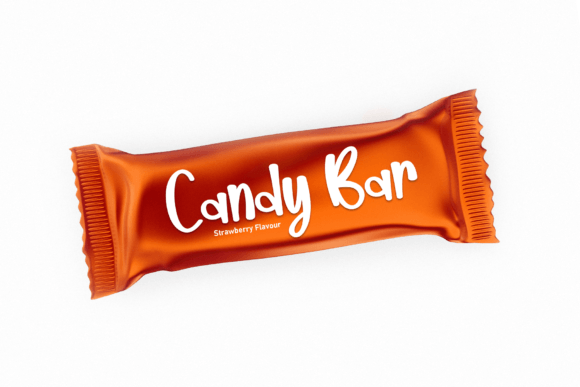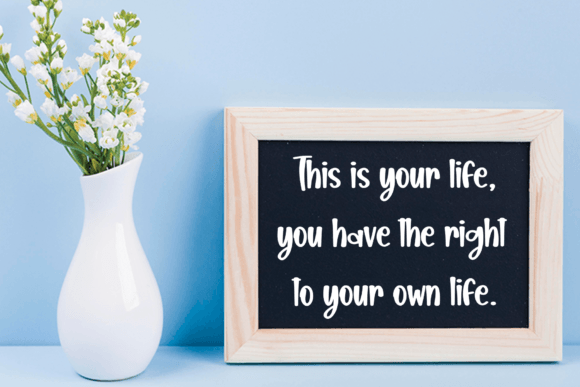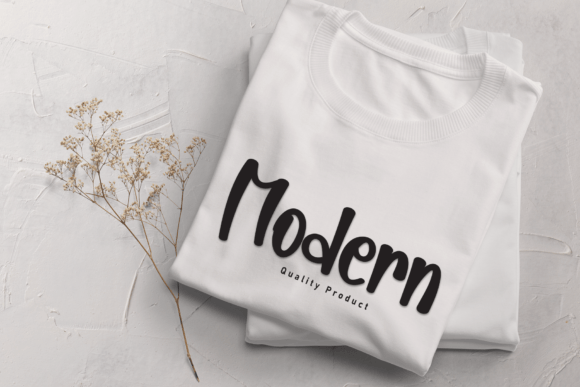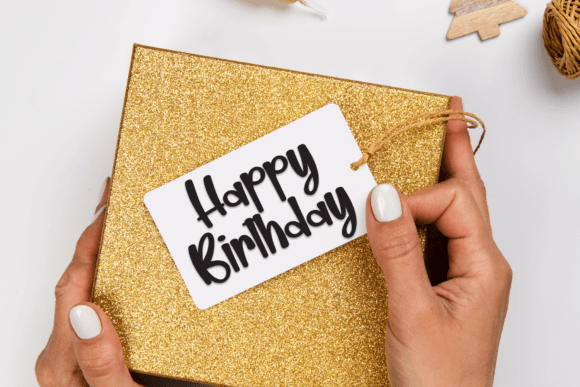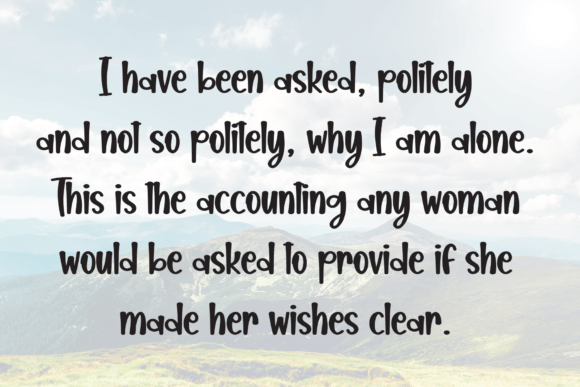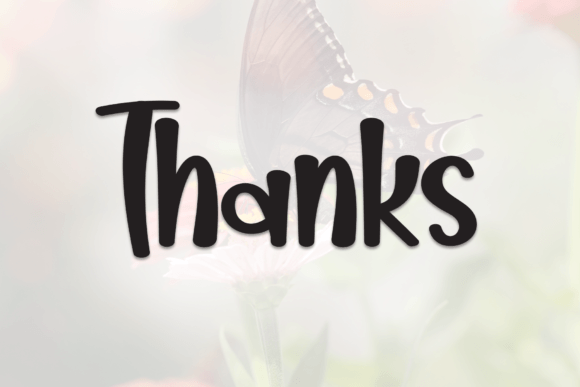
Unleash Your Creativity with the Butterfly Joyful Font
Have you ever sat at your desk, staring blankly at a blank canvas, waiting for inspiration to strike? For many designers, this is a familiar scenario. But what if I told you that there’s a font that can spark that creative spark and bring your ideas to life? Enter the Butterfly Joyful Font, a sweet and friendly handwritten font that’s perfect for adding a touch of whimsy to your designs.
With its natural and unique style, the Butterfly Joyful Font is incredibly versatile and can be used for a wide range of projects, from greeting cards to social media graphics. Whether you’re a seasoned designer or just starting out, this font is a valuable addition to your toolkit. Its playful and approachable vibe makes it easy to work with, and its endless possibilities will keep you coming back for more.
Key Features of Butterfly Joyful Font
- Unique Characteristics: The font features a playful, whimsical design with intricate details and flourishes, making it perfect for children’s books, magazines, and other creative projects.
Designer Review: Butterfly Joyful Font
First off, I’d like to say that I’m loving the whimsical vibe ✨ of the Butterfly Joyful Font. The design team has done a great job of capturing the carefree essence of a butterfly, and it really shows in the font’s playful curves and flourishes. The font feels like a breath of fresh air, perfect for designs that need a touch of magic and wonder.
One of the things I appreciate most about the font is its versatility ✨. It works beautifully for both display and body text, and the bold weight is particularly stunning for headings. I’ve also noticed that the font looks great on both digital and print materials, making it a great choice for a wide range of projects.
However, I do have a few concerns ⚠️. The font could benefit from a few more glyphs to make it more comprehensive. Currently, it’s a bit limited in terms of punctuation and special characters, which can make it difficult to use in certain situations. Additionally, the font’s spacing can be a bit inconsistent at times, which may require some manual adjustments in certain designs.
Overall, I think the Butterfly Joyful Font is a wonderful addition to any designer’s toolkit. While it may have some limitations, its unique charm and versatility make it a great choice for designs that need a touch of personality and whimsy.
- Whimsical and playful design
- Versatile for both display and body text
- Beautiful bold weight for headings
- Works well on digital and print materials
- Some limitations in terms of glyphs and spacing
To get the most out of the Butterfly Joyful Font, try using it in combination with other playful and colorful elements, such as illustrations or graphics.
It’s also a great font to use for headings and titles, as it adds a touch of whimsy and fun to your design.
The Butterfly Joyful Font is perfect for:
Children’s book covers and illustrations
Party invitations and decorations
Wedding stationery and decorations
Any design that needs a touch of whimsy and playfulness